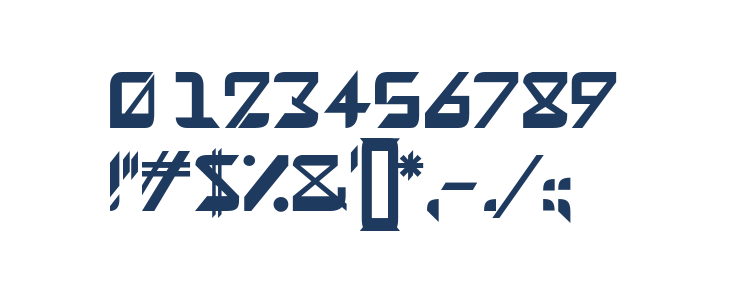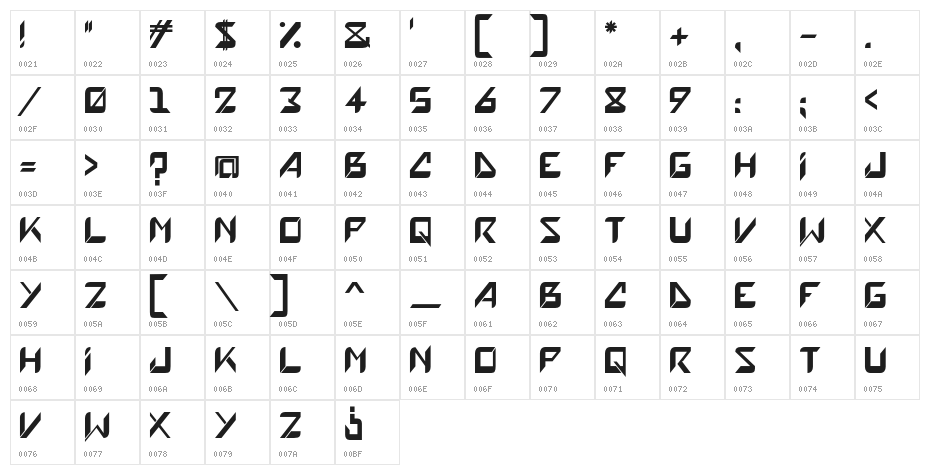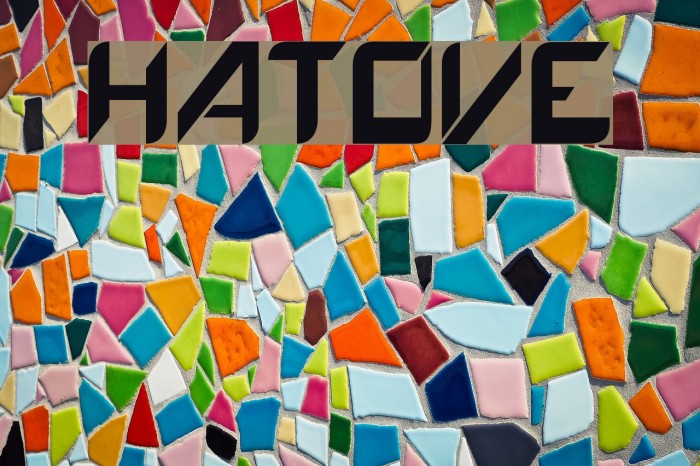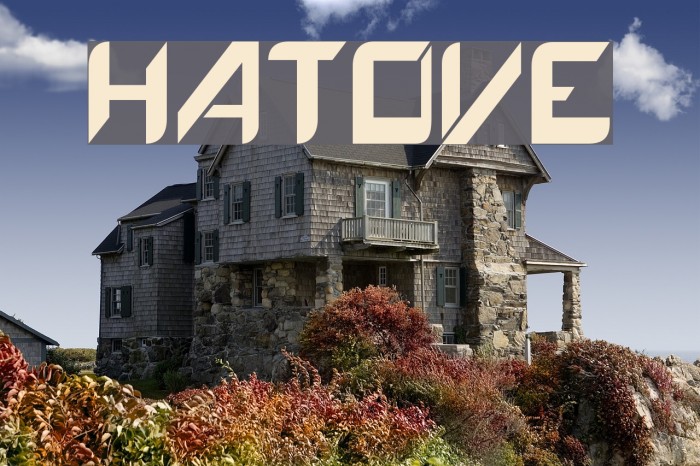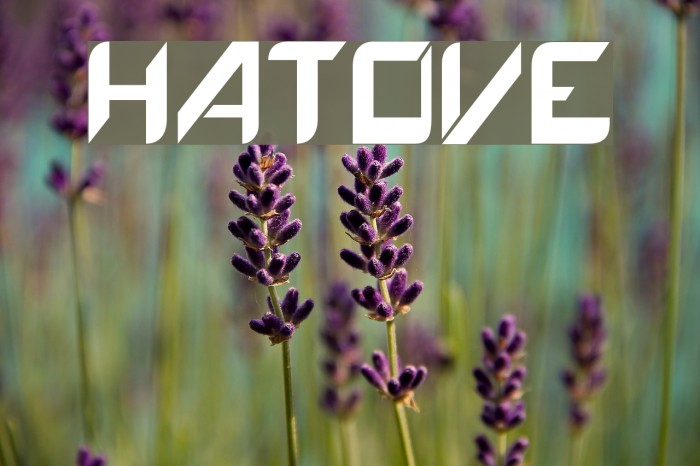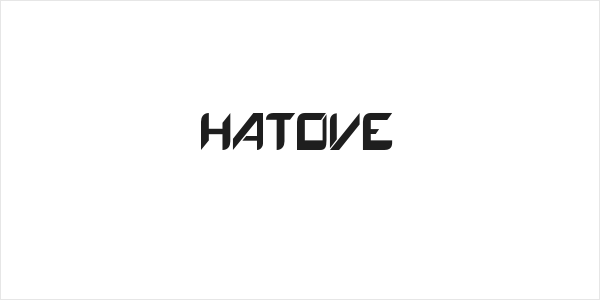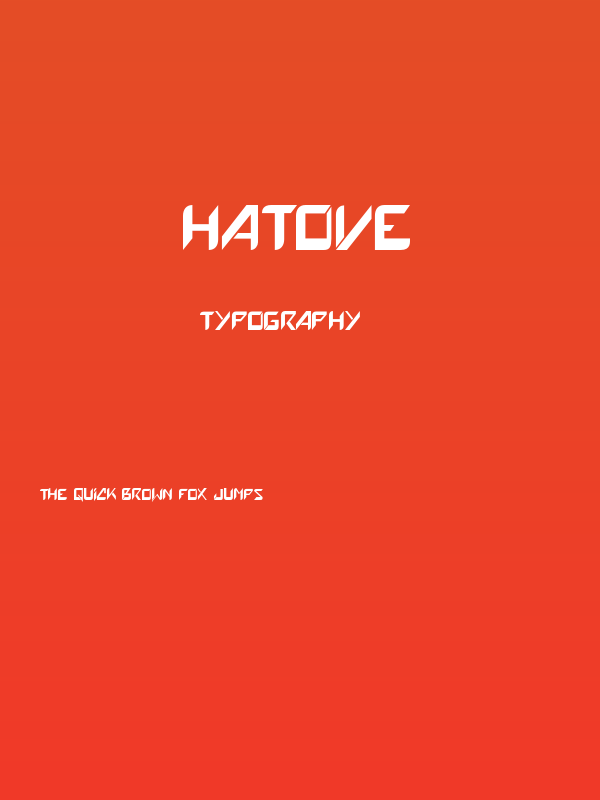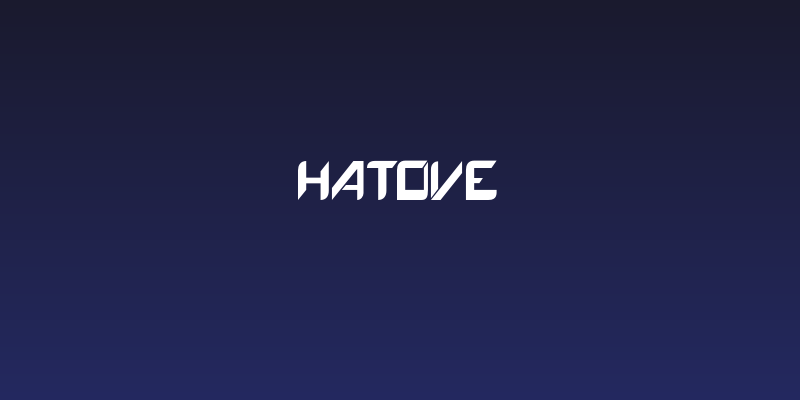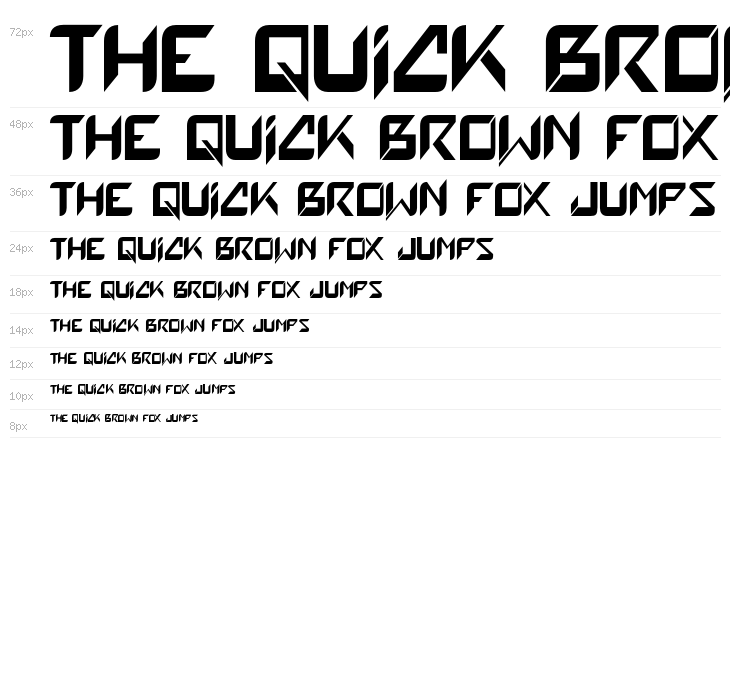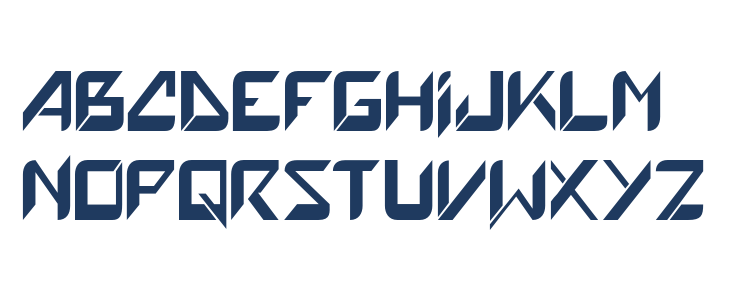
Hatove Font
Hatove Description
This font features a bold, geometric design with sharp angles and a futuristic aesthetic. The characters are constructed with a combination of straight lines and diagonal cuts, giving them a dynamic and edgy appearance. The uppercase and lowercase letters maintain a consistent style, with a strong emphasis on angularity and symmetry. The numbers and special characters follow the same design principles, ensuring a cohesive look across all glyphs. The font's modern and bold style makes it suitable for projects that require a strong visual impact.
| Proposed Projects | Ideal for branding, posters, video game graphics, and sci-fi themed designs. |